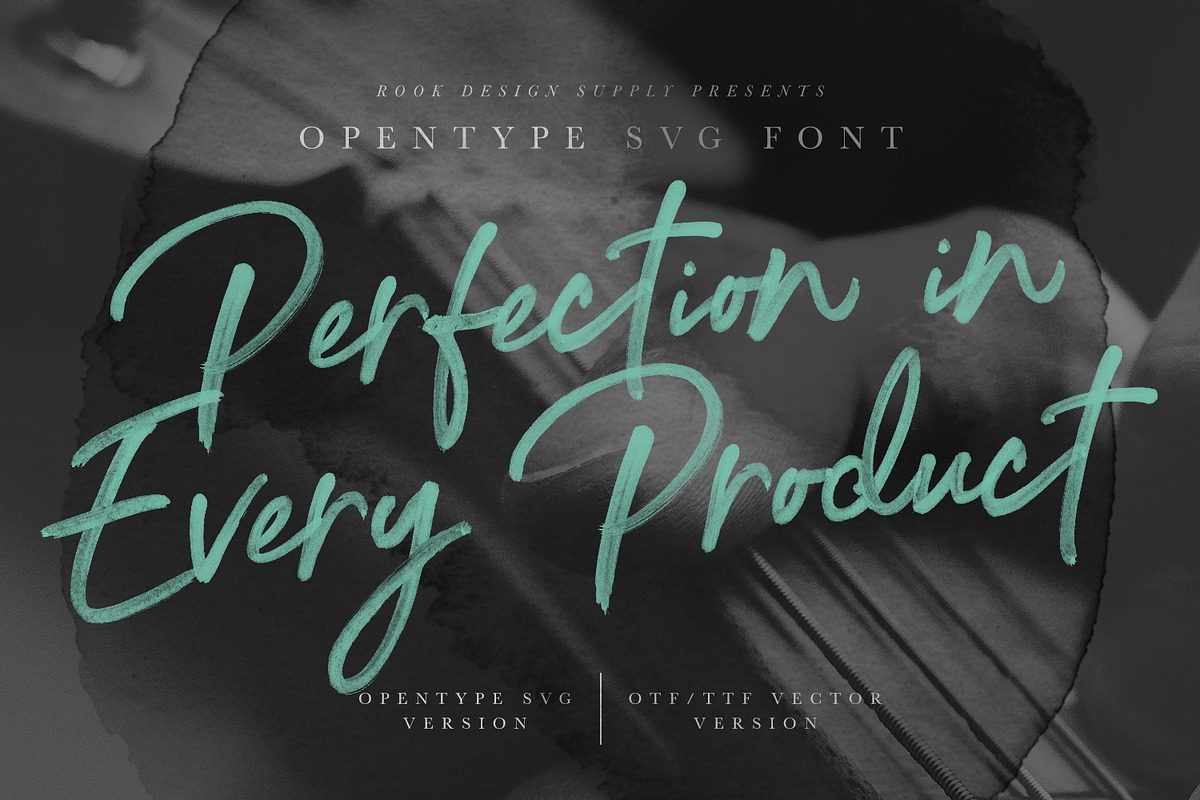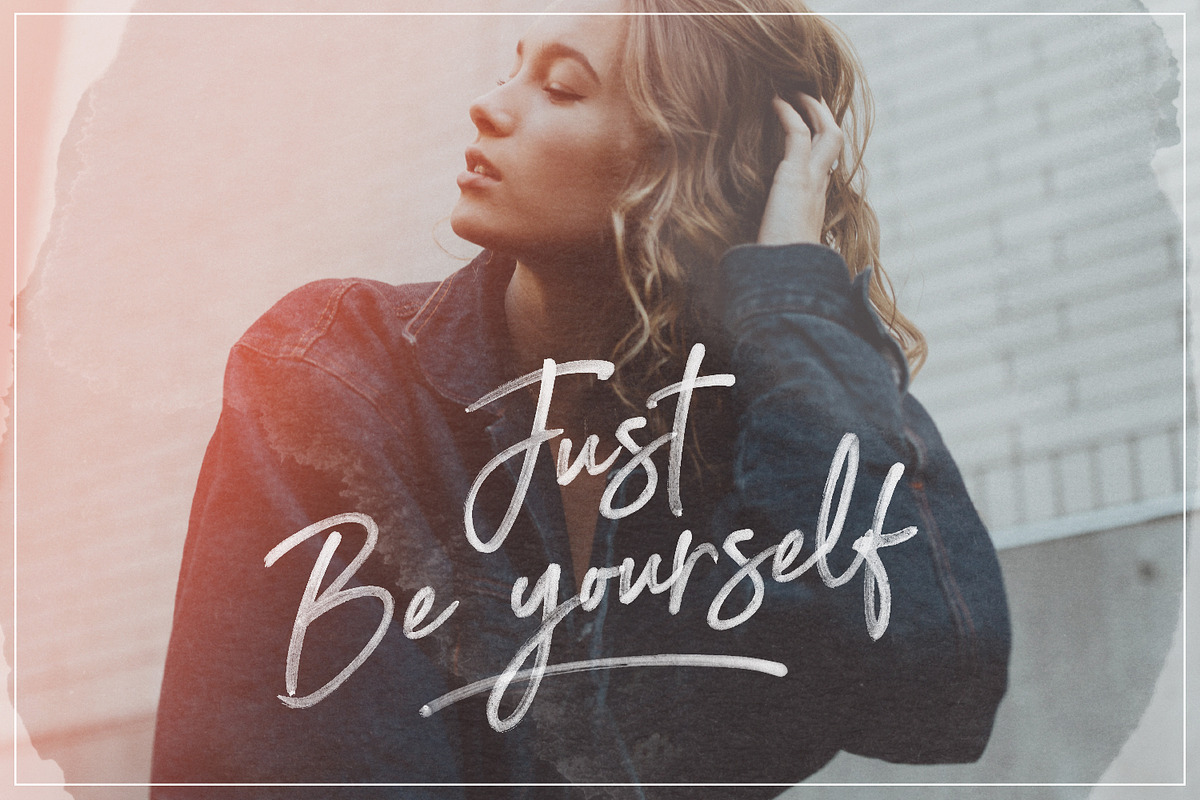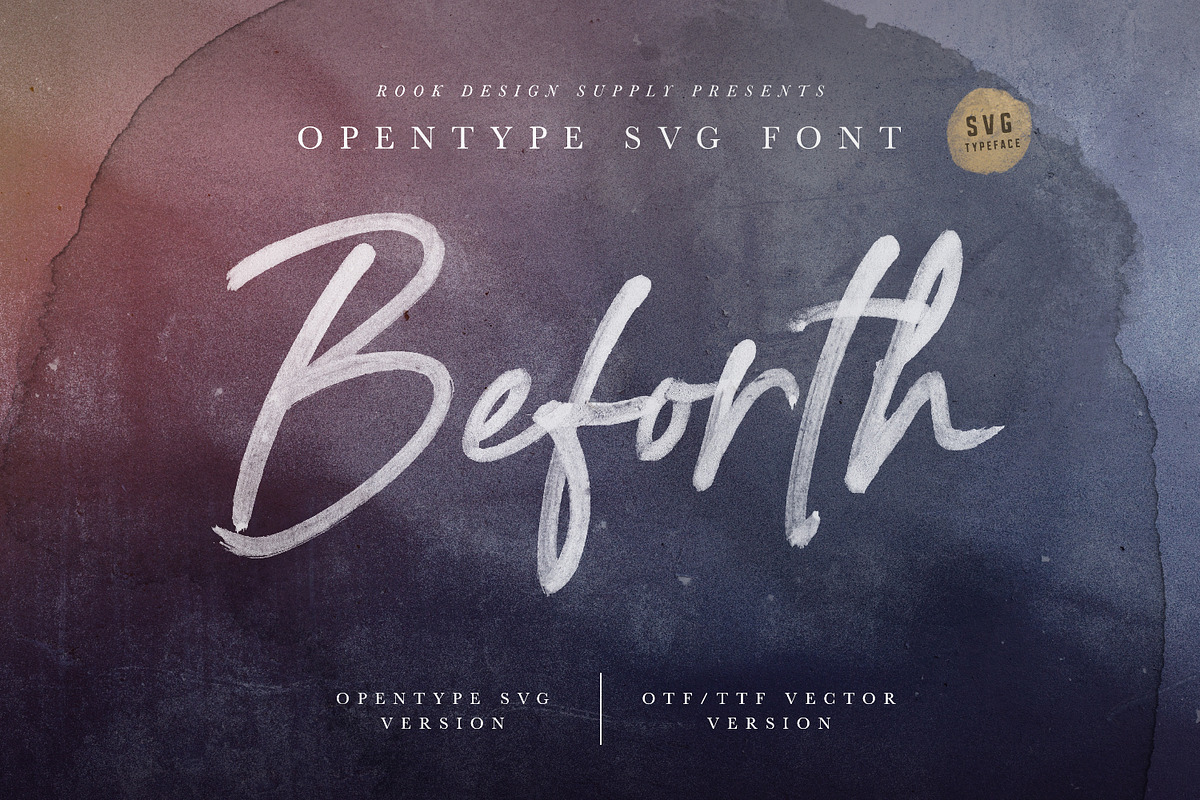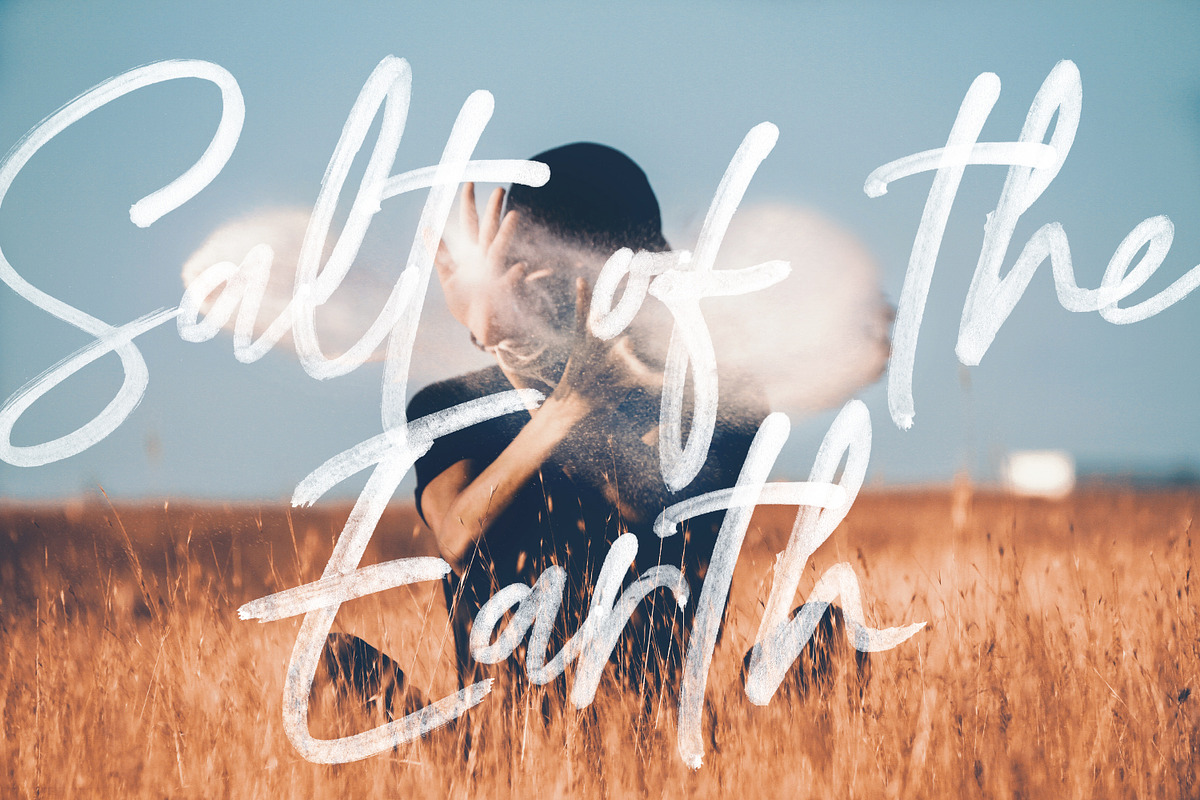
Beforth - OpenType SVG Font
Take your design game to the next level with a hyper realistic font that truly looks hand written. Beforth uses brand new font technology that makes way for more authentic looking fonts and is sure to grab the attention of customers and designers alike. Each lowercase character has an alternate glyph option available, so you have options to add variance.
So how does it work? Instead of vectorizing the letters, Beforth uses actual images and transparency effects in order to get the quality that you see. This is all made possible thanks to the latest developments of the OpenType-SVG format, and the integration of that technology into Photoshop CC 2017.1.1 and Illustrator CC 2018. Beforth installs like any other font, and can be used in any color, on any background.